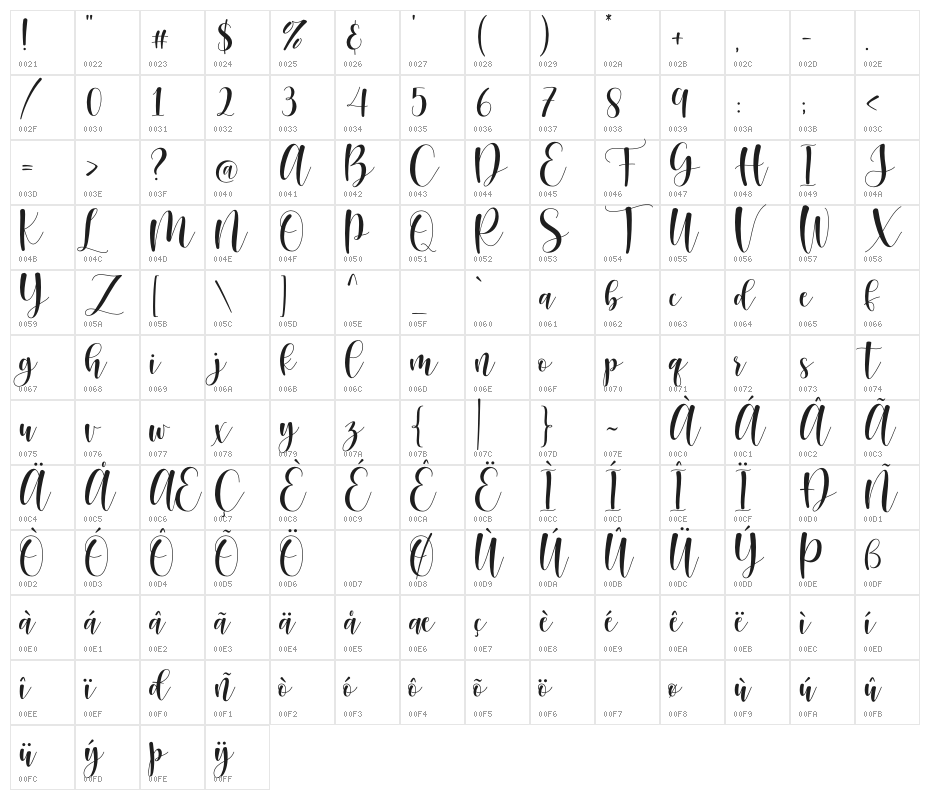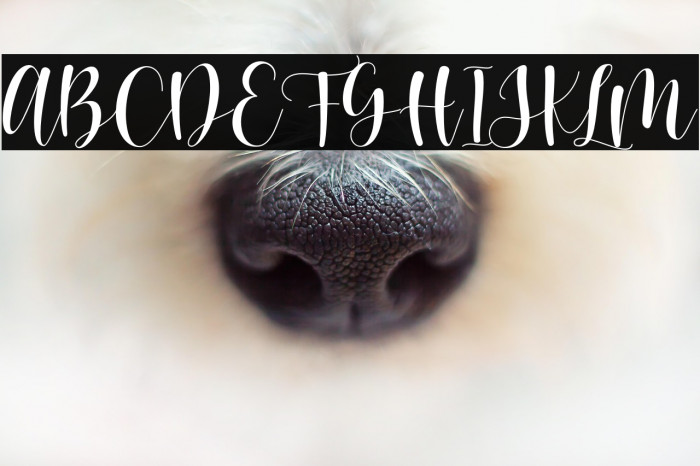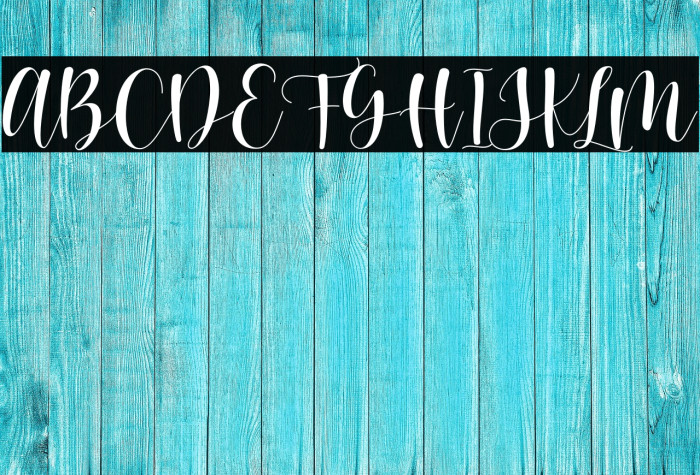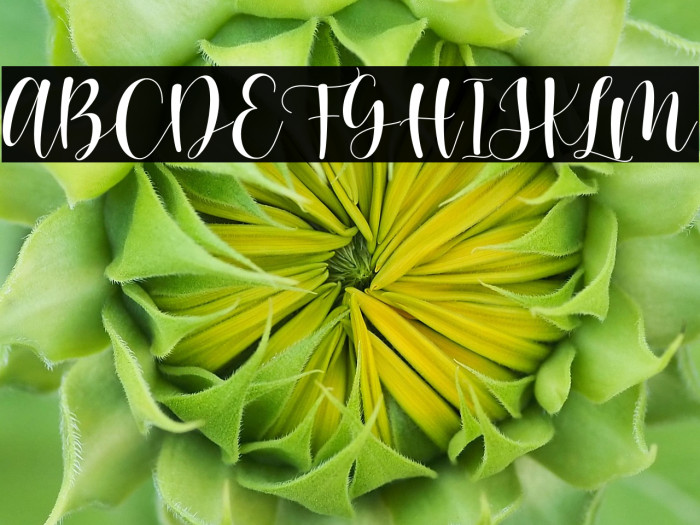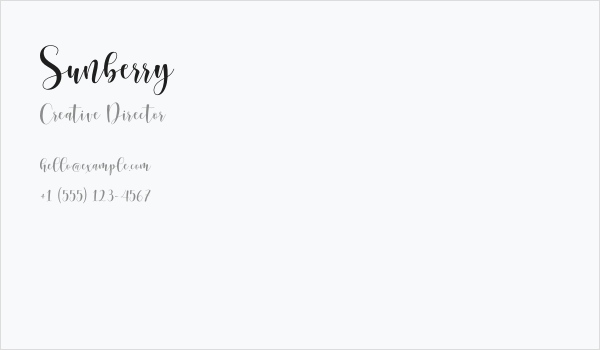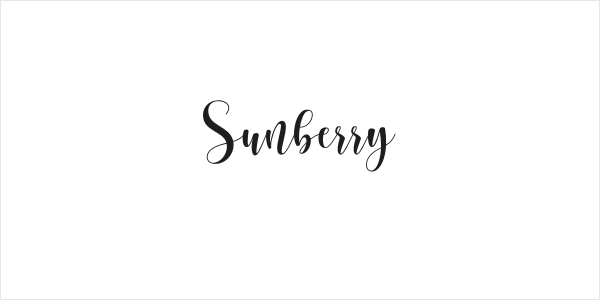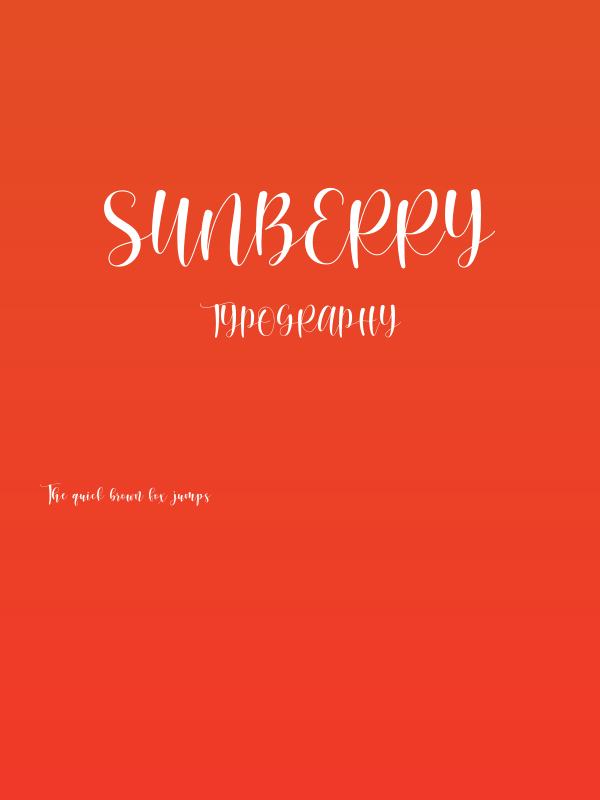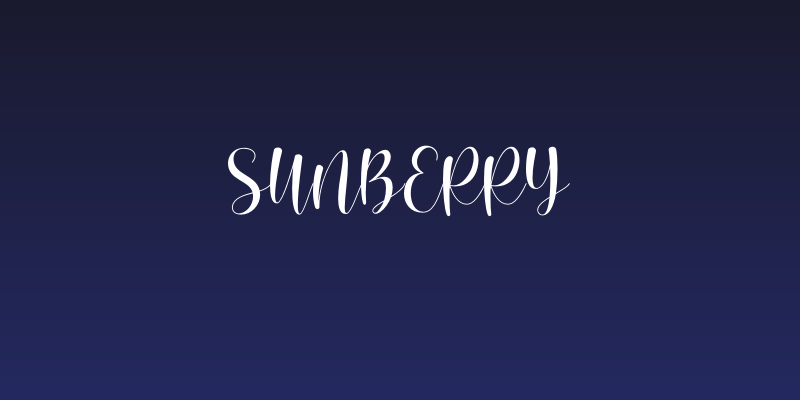
Sunberry Font
Sunberry Description
This font features a flowing, cursive style with elegant loops and swashes, giving it a handwritten appearance. The letters are interconnected, creating a sense of fluidity and movement. The uppercase characters are bold and expressive, while the lowercase letters maintain a consistent, graceful form. The numerals and special characters complement the overall aesthetic, maintaining the same flowing style. This font is perfect for adding a personal touch to any design, with its artistic flair and sophisticated look.